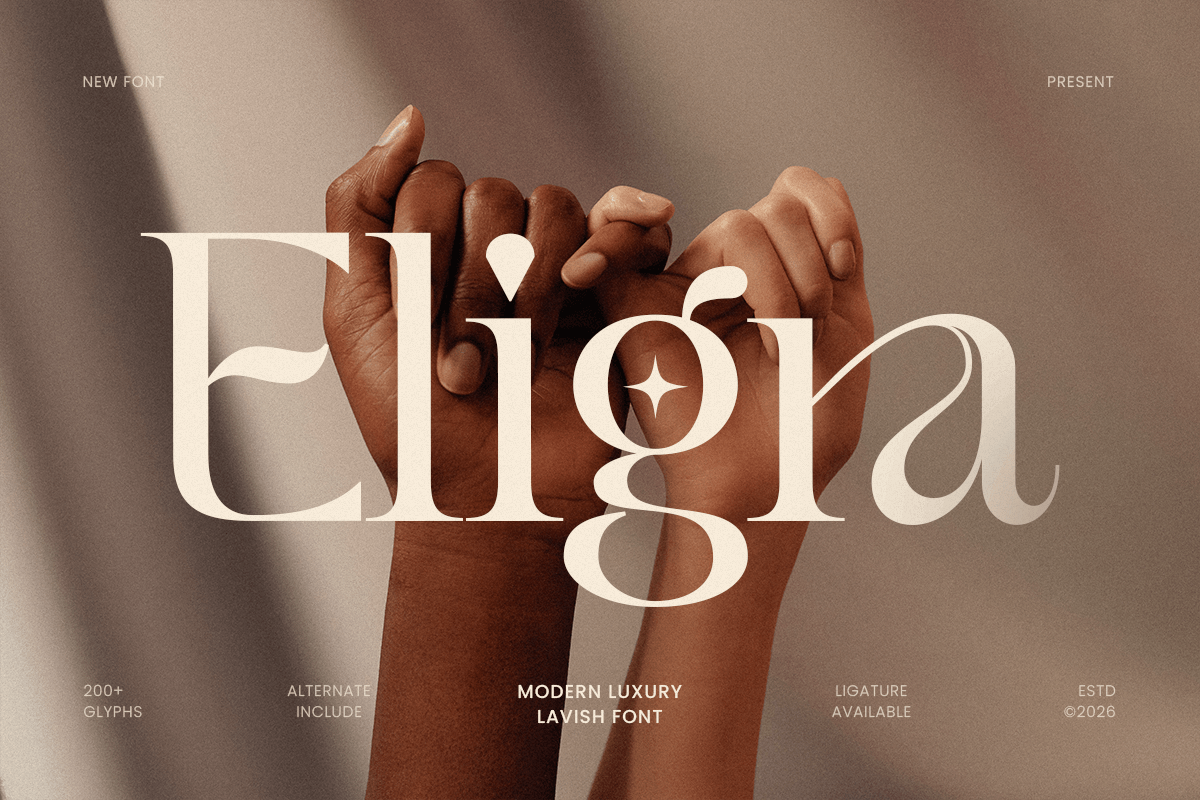
Eligra
-Modern Classy Lavish Serif Font
Eligra is a modern luxury lavish font crafted to deliver refined elegance with a bold premium presence. Designed with polished letterforms, graceful balance, and a sophisticated visual rhythm, this typeface creates a high-end tone that feels exclusive, stylish, and instantly brand-ready.
Built for luxury-focused typography, Eligra works beautifully across logos, wordmarks, brand identity systems, website headers, editorials, magazine titles, packaging, labels, invitations, signage, and upscale marketing visuals. Its lavish character adds prestige and visual richness, while the modern structure keeps every layout clean, readable, and polished across both digital and print design.
Whether you’re creating a fashion label, elevating a beauty brand, designing premium packaging, or crafting an editorial layout with a glamorous tone, Eligra provides a luxurious typographic foundation that makes your visuals feel elegant, memorable, and unmistakably premium.
Inspiration Behind Eligra
Eligra is inspired by contemporary luxury branding and lavish editorial typography—where elegance, detail, and confident structure define premium communication. The design focuses on refined proportions and upscale rhythm to support high-end logos, sophisticated brand systems, and modern luxury visuals with timeless appeal.
Eligra Font Features:
• Modern luxury letterforms with lavish, refined character
• Perfect for premium branding, logos, and elegant editorial headlines
• Clean structure for upscale layouts and strong readability
• Luxury logos, wordmarks, and premium brand identity systems
• Fashion, beauty, skincare, fragrance, and boutique branding
• Editorial layouts, magazine covers, lookbooks, and headlines
• Premium packaging, labels, invitations, and elegant stationery